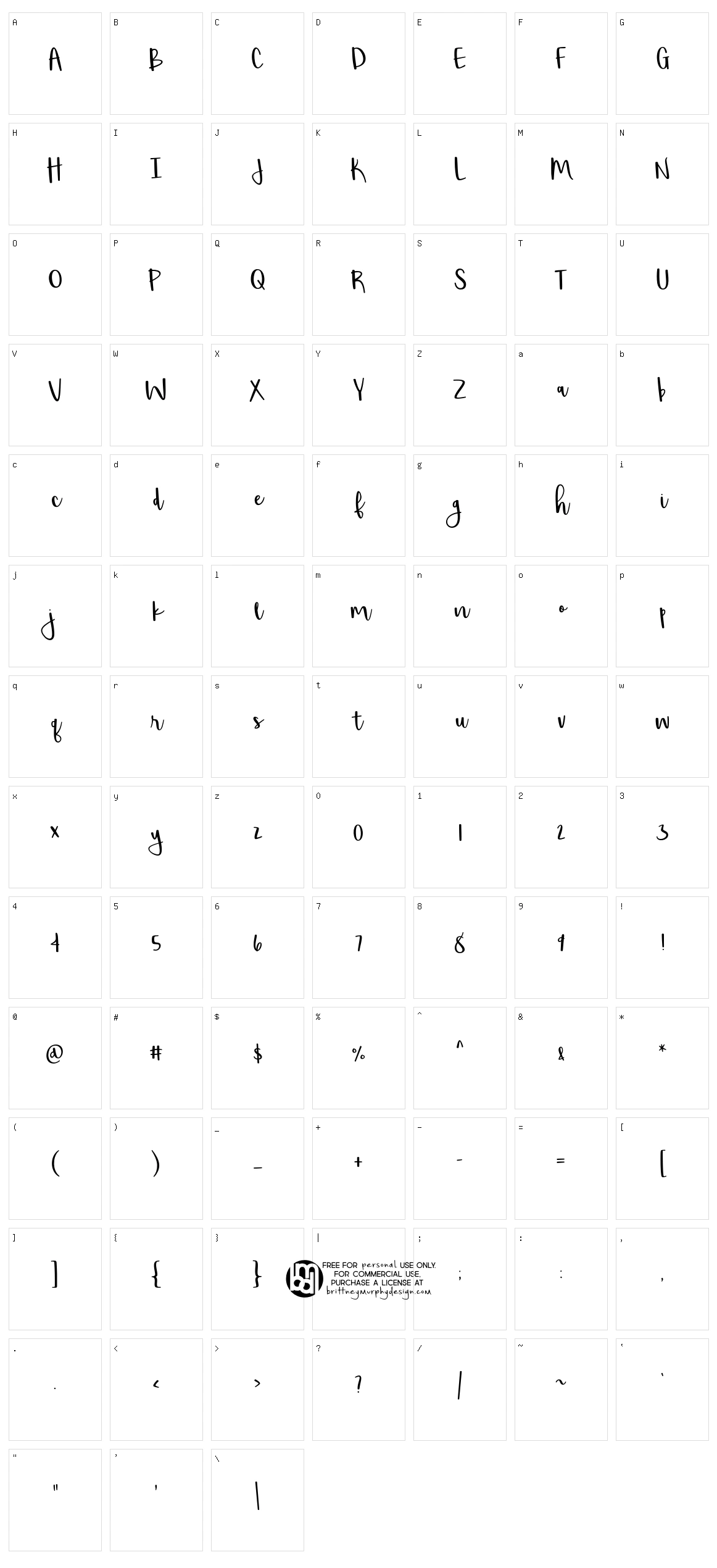
The free font Shorthalt is carefully designed by Brittney Murphy Design, showcasing a thoughtful balance of creativity and usability and falls under the Script font style. When you download the ZIP file, it contains only 189.13 KB of font files, making it lightweight and quick to download. Please review the license details below to understand permitted usage and distribution rights. If license information is not available, we recommend using this font for personal projects only or contacting the author directly for commercial usage permissions.